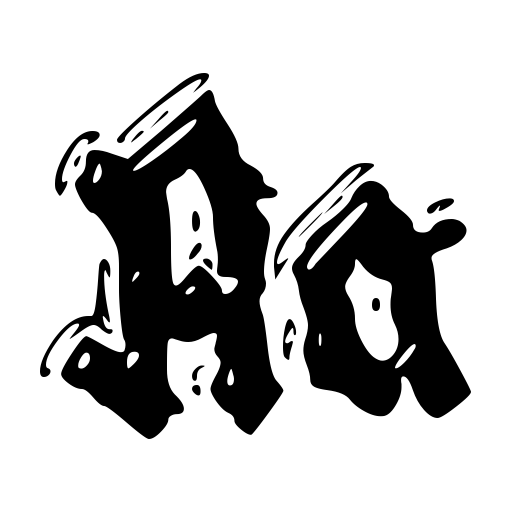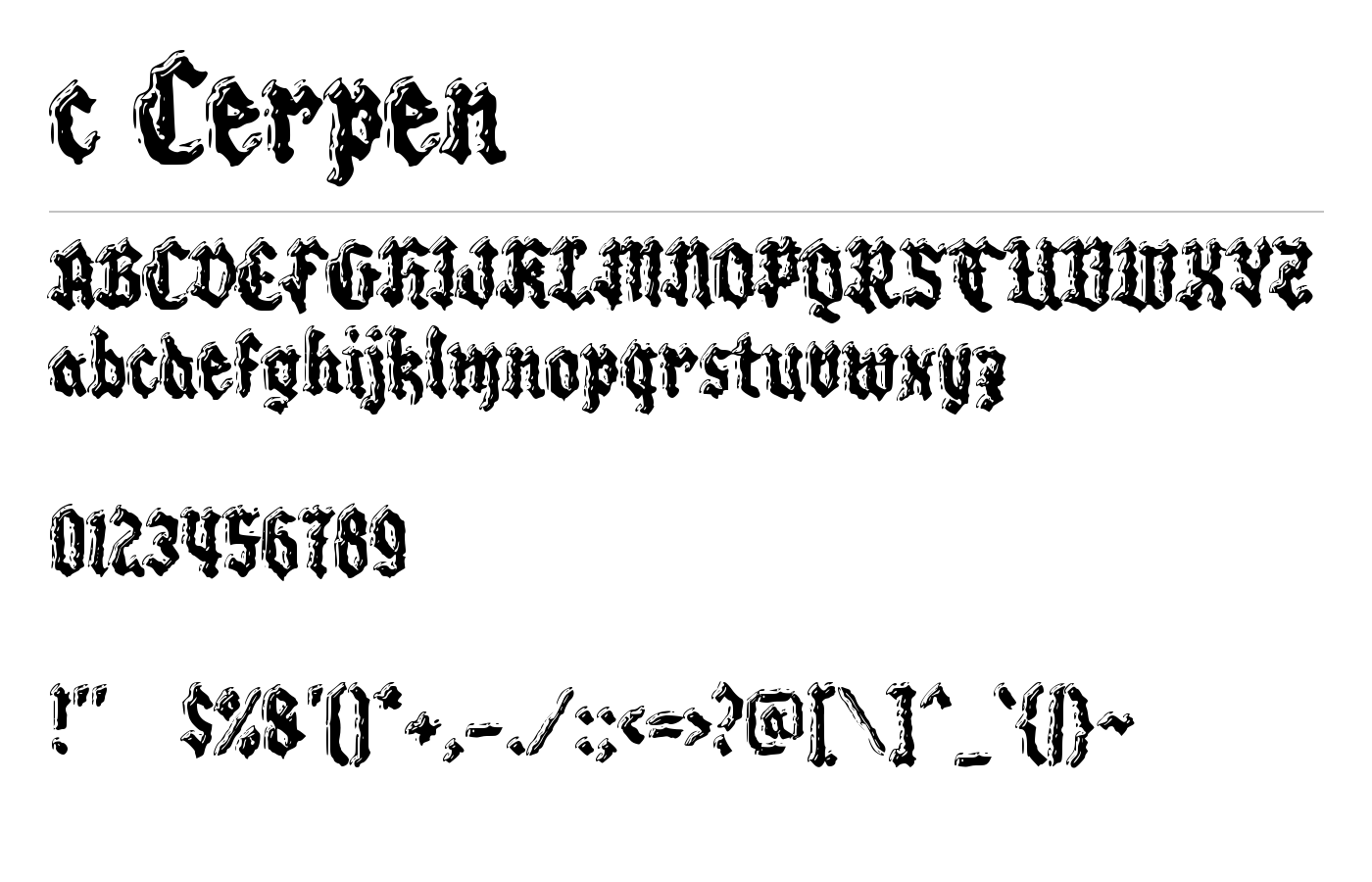
c Cerpen Font is a bold, blackletter-style typeface with a heavy, textured stroke that gives it a rugged and vintage feel. Its dense letterforms and ornate detailing make it ideal for eye-catching headlines, logos, and designs that want to evoke a gothic or medieval atmosphere. This font works best in display uses where strong personality and dramatic impact are needed.
c Cerpen Font
About c Cerpen Font